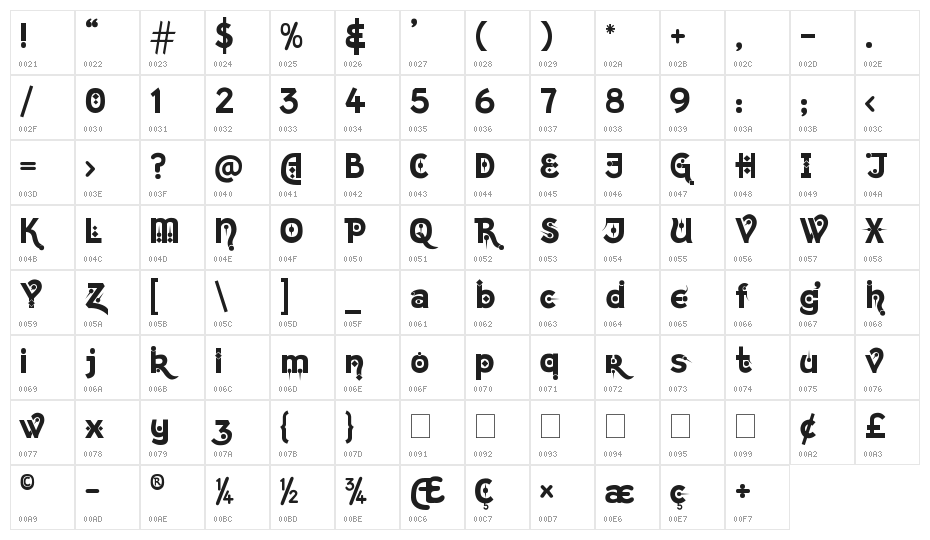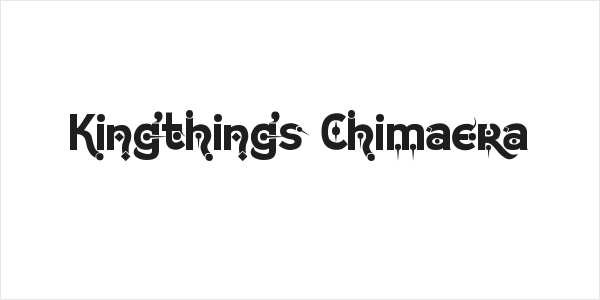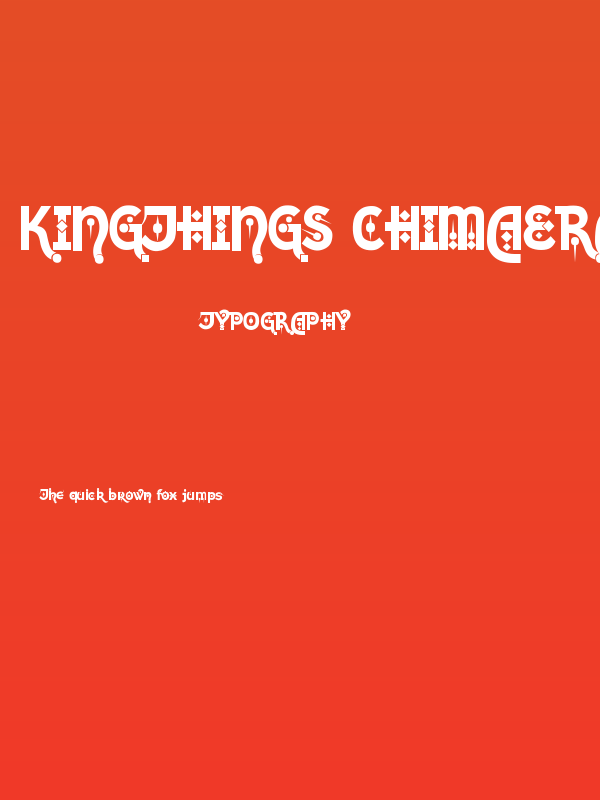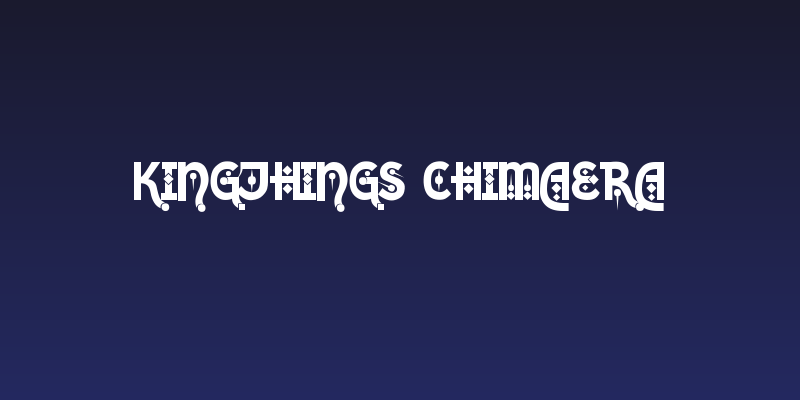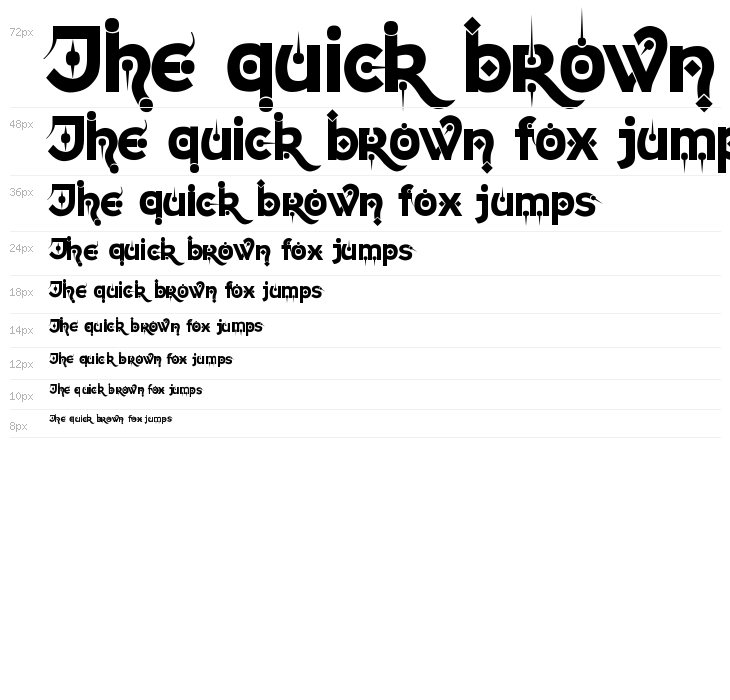
Kingthings Chimaera Font
Kingthings Chimaera Description
This font features a bold and decorative style with unique geometric elements and intricate details. The characters are adorned with dots and sharp angles, giving them a distinct and artistic appearance. The uppercase letters are particularly striking, with embellishments that create a sense of movement and flair. The lowercase letters maintain the decorative theme, with consistent design elements that unify the font. Numbers and special characters are equally stylized, ensuring a cohesive look across all glyphs. This font's boldness and intricate design make it stand out, perfect for projects that require a touch of creativity and uniqueness.
| Proposed Projects | Ideal for creative projects such as posters, album covers, branding, and any design work that requires a unique and artistic touch. |